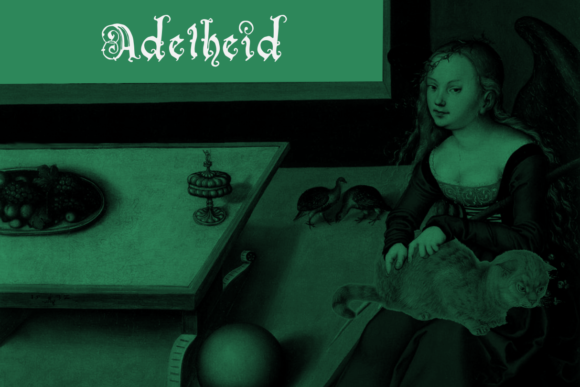
The Whimsical World of Adelheid Font
I still remember the design project that led me to discover the charming Adelheid font. I was working on a branding project for a craft brewery, and I needed a font that would evoke a sense of history and playfulness. After hours of searching, I stumbled upon Adelheid, a wonderfully whimsical excursion into the realm of blackletter typefaces. It’s based on a 16th-century Swiss publication, and I was immediately smitten.
A Personal Review of Adelheid Font
- ✨ Unique and quirky design that’s perfect for creative projects
- ✅ Excellent for headlines, titles, and short paragraphs
- 💡 Supports OpenType features, glyphs, and stylistic alternates
- 📚 Based on a 16th-century Swiss publication, adding a touch of history and authenticity
While Adelheid is an amazing font, it’s not without its quirks. Here are a few things to keep in mind:
- ⚠️ May not be suitable for body text or long paragraphs due to its ornate design
- 🤔 Limited character set compared to more modern fonts
The Backstory of Adelheid Font
Adelheid is based on a 16th-century Swiss publication, and its design reflects the ornate, whimsical style of the time. While we don’t know much about the original designer, it’s clear that Adelheid was created with love and attention to detail. The font’s unique character and charm have made it a favorite among designers and crafters.
| Font Name | Adelheid Font |
| Author | Proportional Lime |
| What is Adelheid font based on? | Adelheid font is based on a 16th-century Swiss publication. |
| Is Adelheid suitable for body text? | No, Adelheid is best suited for headlines, titles, and short paragraphs due to its ornate design. |
| Does Adelheid support OpenType features? | Yes, Adelheid supports OpenType features, glyphs, and stylistic alternates. |